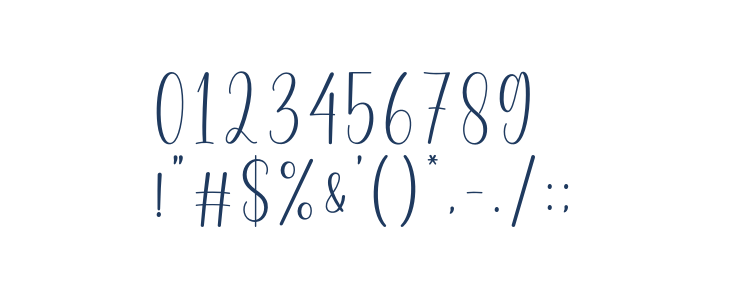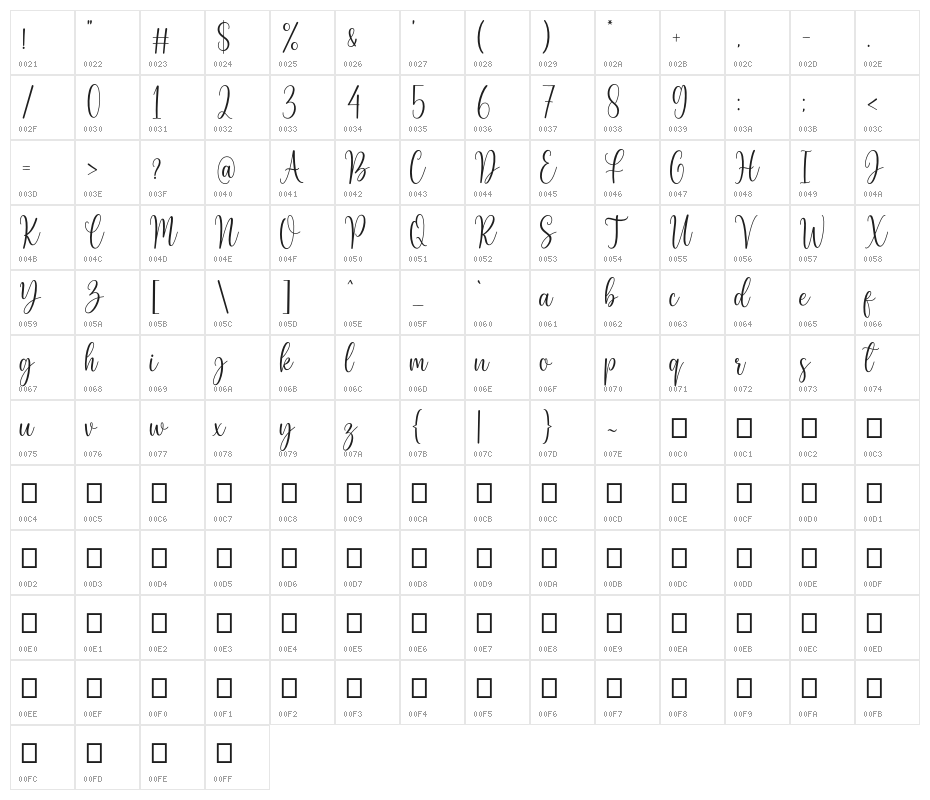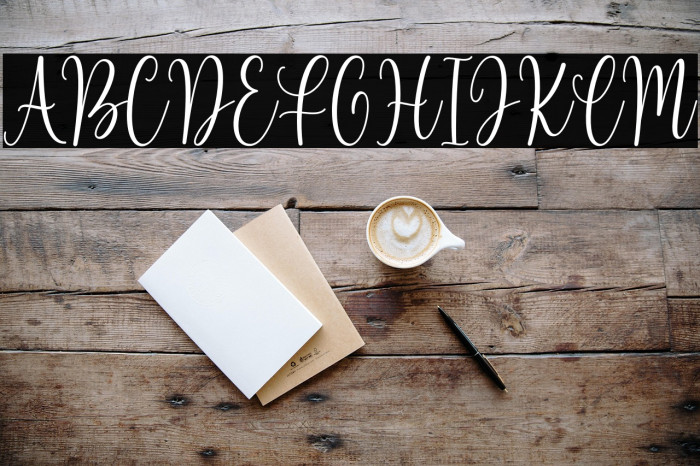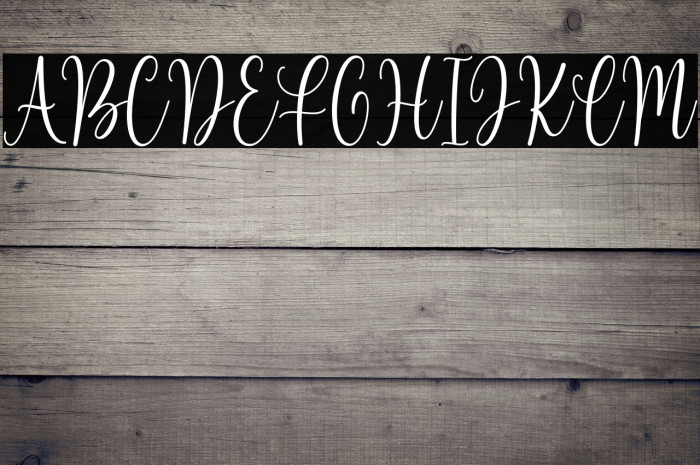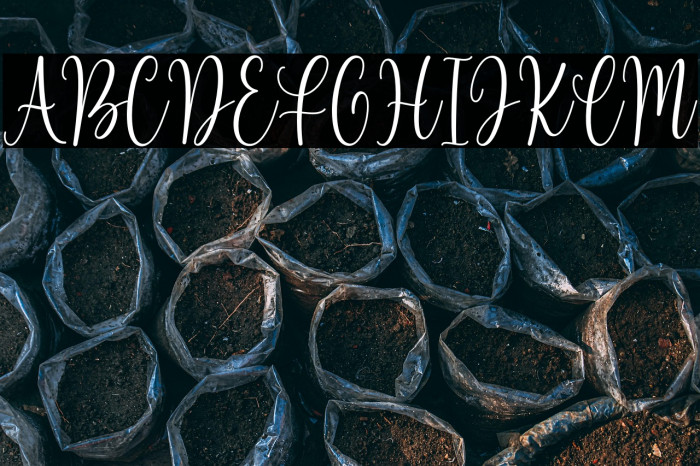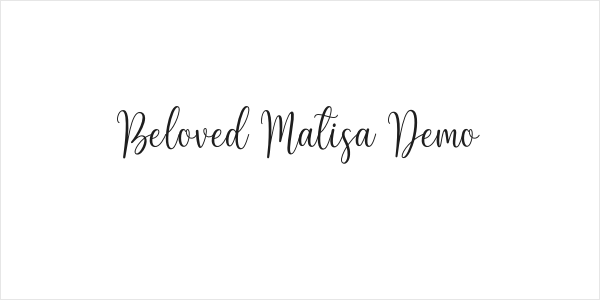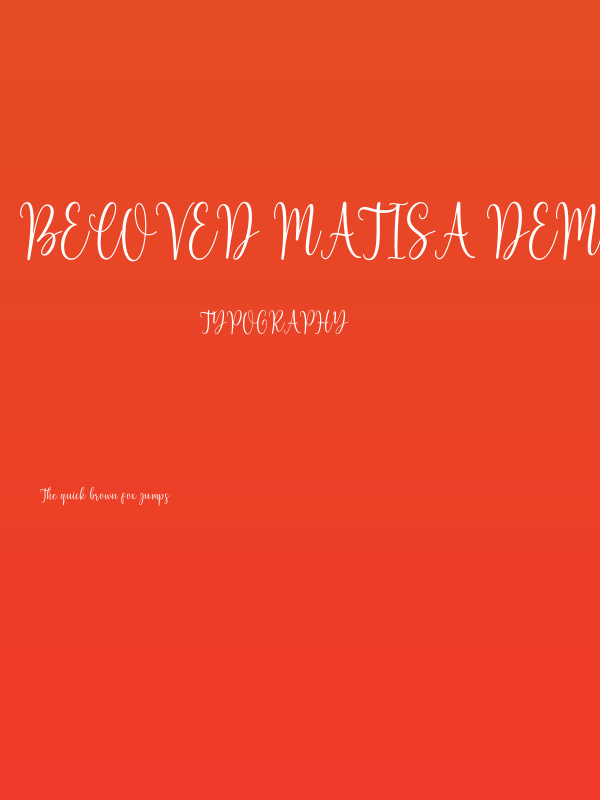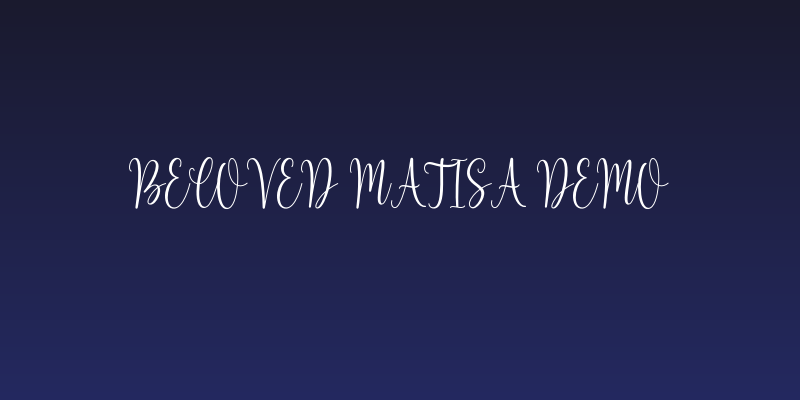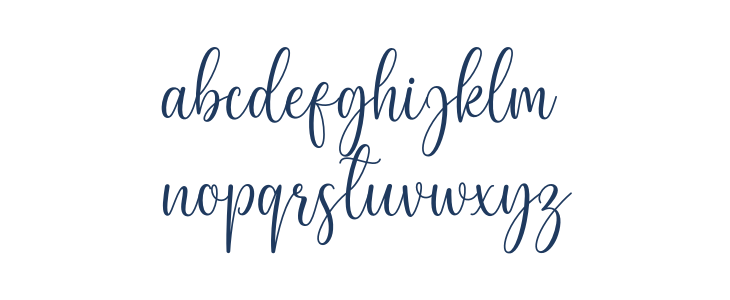
Beloved Matisa Demo Font
Beloved Matisa Demo Description
This font features an elegant and flowing script style, characterized by its smooth, cursive letterforms. The uppercase letters are tall and slender, with graceful loops and swashes that add a touch of sophistication. The lowercase letters maintain a consistent flow, with rounded forms and delicate connections between characters. The numerals are stylish and maintain the script's fluidity, while the special characters complement the overall aesthetic with their refined curves. This font exudes a sense of elegance and charm, making it suitable for various creative applications.